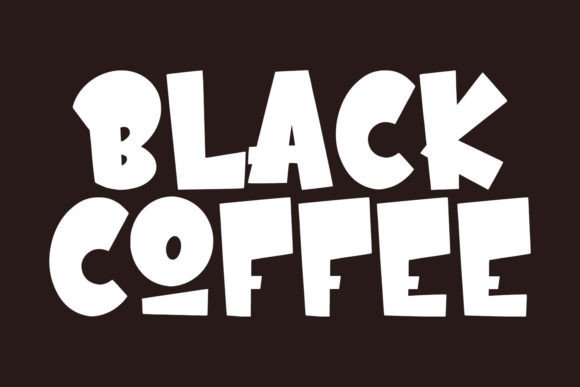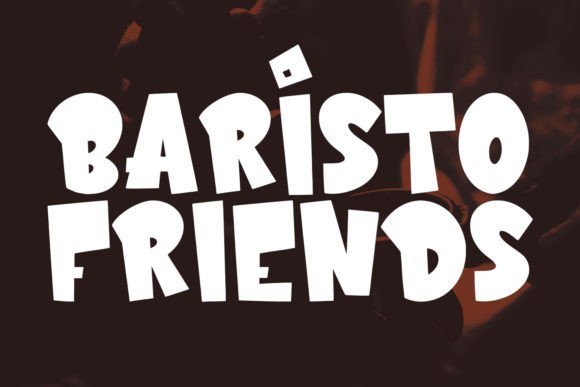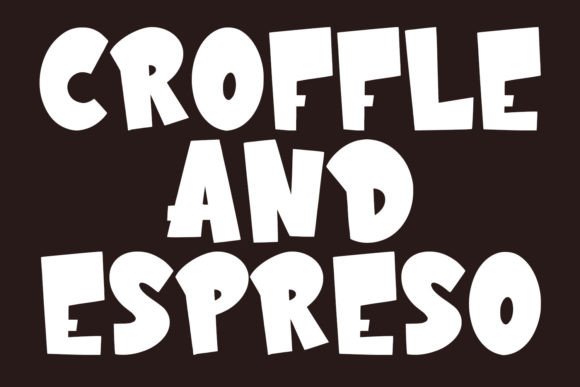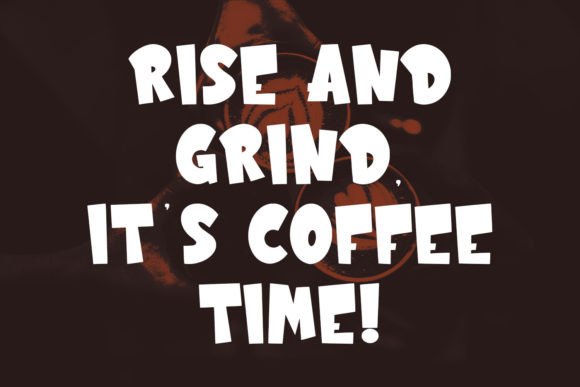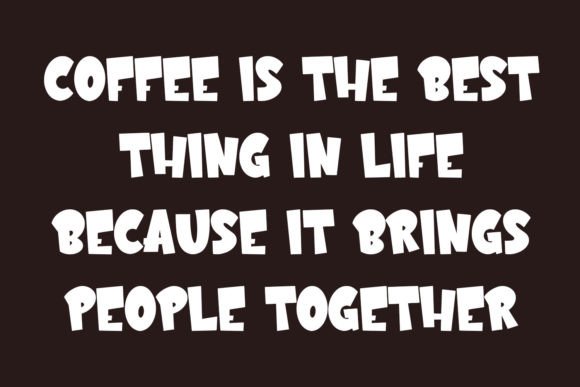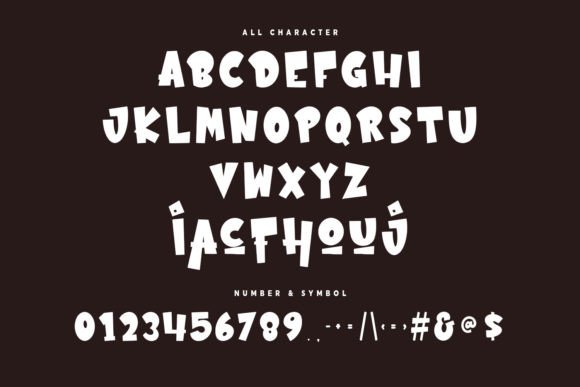
Unlock Your Creativity with Bariso Cawfu Font
Have you ever stared at a blank page, waiting for inspiration to strike? For designers, this moment is all too familiar. But what if you had the perfect tool to spark your creativity and bring your ideas to life? Enter Bariso Cawfu Font, a bold display font designed to add a touch of excitement to your work.
With its heavy stroke and fun character, Bariso Cawfu Font is perfect for making a statement. Whether you’re creating a logo, designing a social media campaign, or crafting a movie title, this font is sure to turn heads. Its support for over 100 languages makes it a valuable asset for designers working on multilingual projects. And with its versatility in pairing with script or serif fonts, the possibilities are endless.
Key Features of Bariso Cawfu Font
• Font Family: Bariso Cawfu is a unique, sans-serif font family designed for digital use.
• Unique Characteristics: Features a distinctive, modern design with a strong x-height and geometric shapes, making it ideal for headlines, titles, and display text.
• Language Support: Offers comprehensive language support, including Latin, Cyrillic, and Greek alphabets, as well as support for various diacritical marks and special characters.
Bariso Cawfu Font Review
Overall, I found the Bariso Cawfu Font to be a unique and intriguing choice for designers. ✨ The font’s unconventional style and quirky charm can add a touch of personality to any project. I particularly enjoyed its versatility in being suitable for both digital and print media.
Some of the font’s notable strengths include:
• ✨ Unconventional style that sets it apart from more common fonts
• ✨ Suitable for a wide range of projects, from branding to digital media
• ✨ Includes a variety of weights and styles to suit different design needs
However, I did encounter a few limitations:
• ⚠️ The font may not be suitable for projects that require a more traditional or formal look
• ⚠️ Some characters or glyphs may not display correctly across all platforms or devices
• ⚠️ The font’s unique style may not appeal to all designers or audiences
In conclusion, the Bariso Cawfu Font is a great choice for designers who are looking to add some personality and flair to their projects. While it may have some limitations, its unique style and versatility make it a valuable addition to any design toolkit.
Tips for Getting the Most Out of Bariso Cawfu Font
For best results, use Bariso Cawfu Font in combination with other bold and playful fonts to create a unique and eye-catching design.
Experiment with different font sizes and styles to create visual hierarchy and emphasize important text.
Bariso Cawfu Font is ideal for:
Creativity and design projects
Brand identity and marketing materials
Social media graphics and advertisements
Alternatives to Bariso Cawfu Font for Designers
Great Vibes is a modern script font that is perfect for creating a friendly and approachable atmosphere. It is ideal for use in logos, signage, and branding materials where a relaxed and casual tone is desired.
Compared to Bariso Cawfu Font, Great Vibes has a more laid-back and casual feel, making it suitable for a wide range of applications, including advertising, packaging, and editorial design.
Carolyna Pro is a elegant and sophisticated script font that is perfect for creating a luxurious and high-end atmosphere. It is ideal for use in branding materials, advertising, and editorial design where a touch of sophistication is desired.
Compared to Bariso Cawfu Font, Carolyna Pro has a more refined and polished feel, making it suitable for high-end applications such as luxury branding, fashion, and hospitality.
What is the recommended font size for using Bariso Cawfu?
The recommended font size for Bariso Cawfu is between 12pt and 24pt. This font size range allows the font to be legible and visually appealing in various design contexts. However, the optimal font size may vary depending on the specific design project and the intended audience.